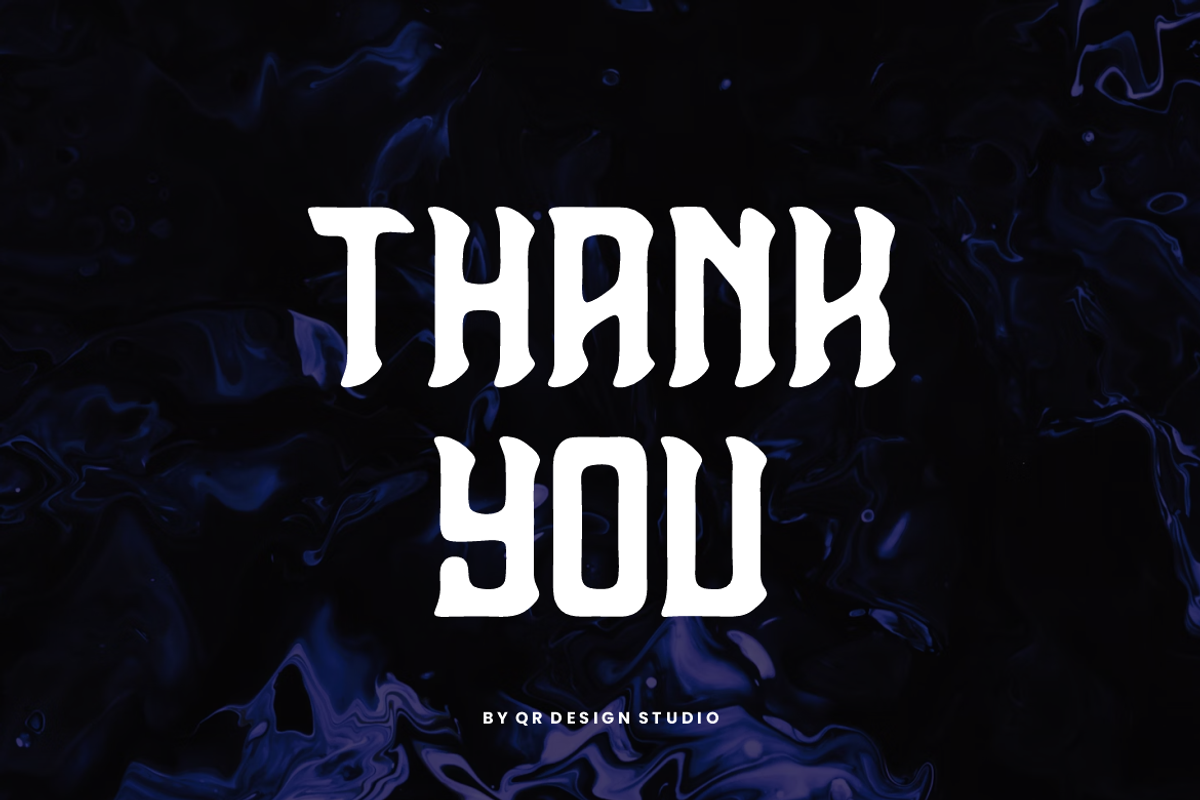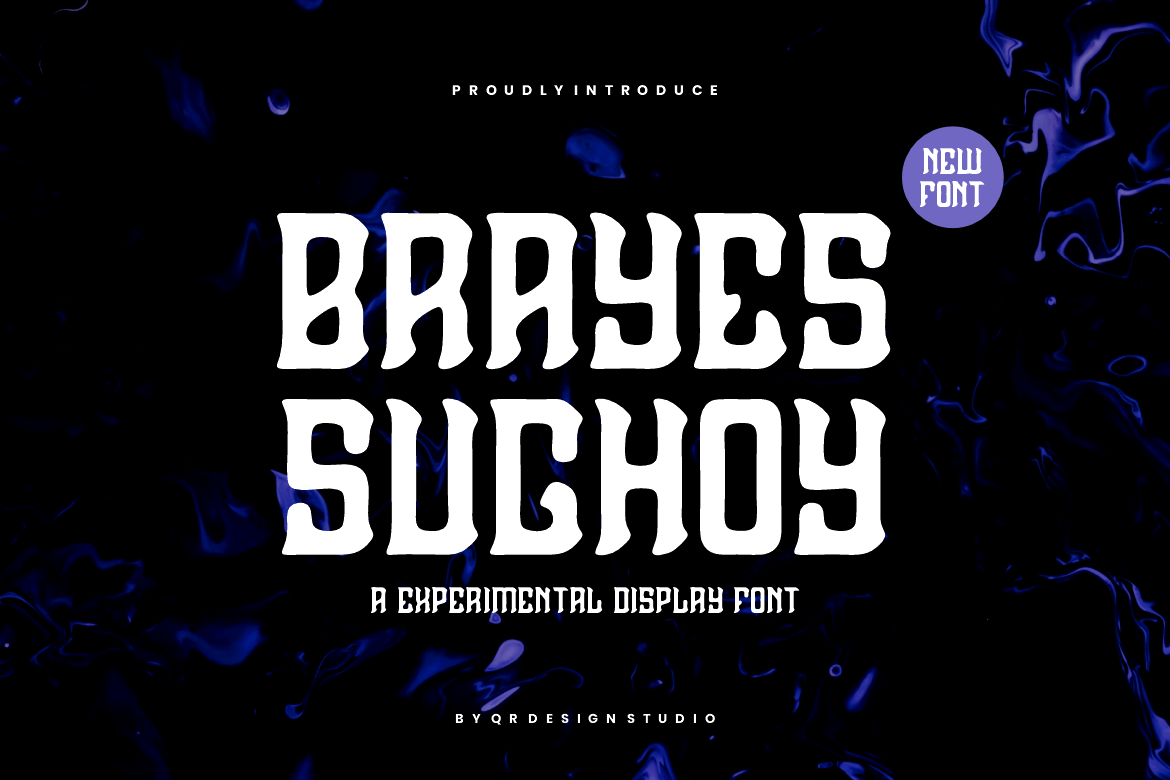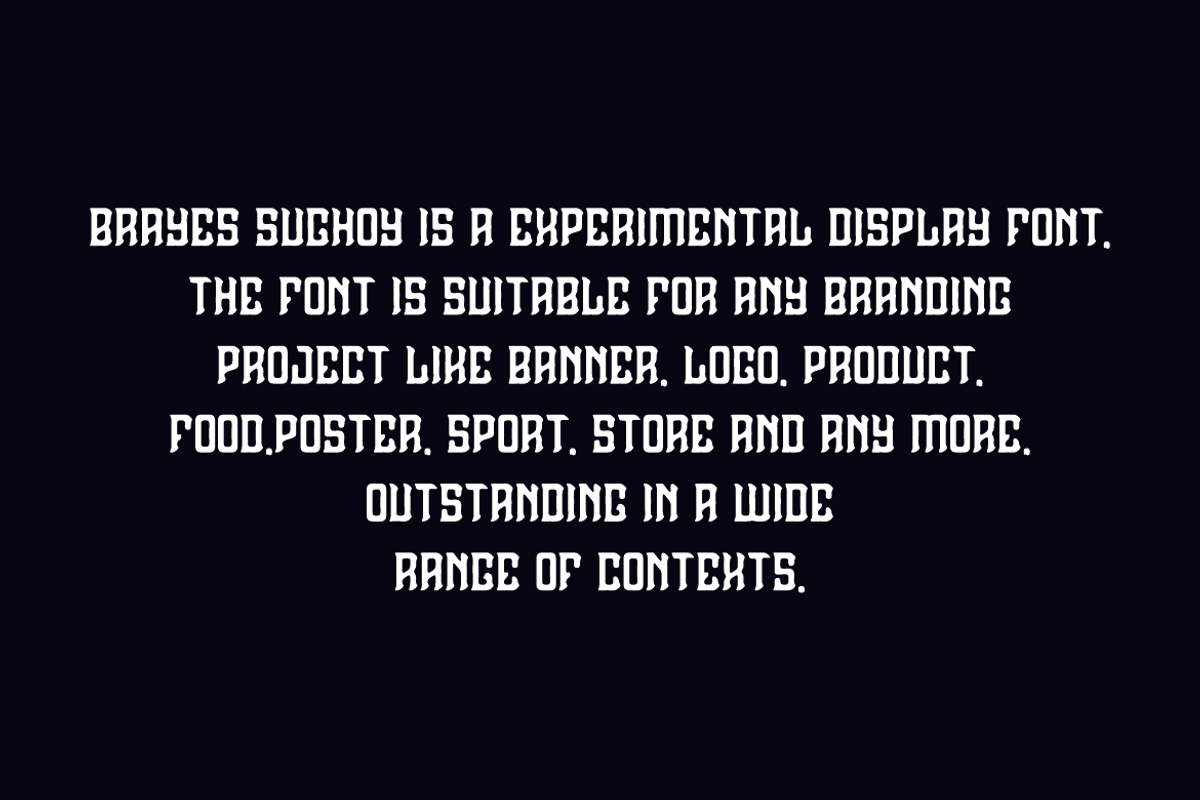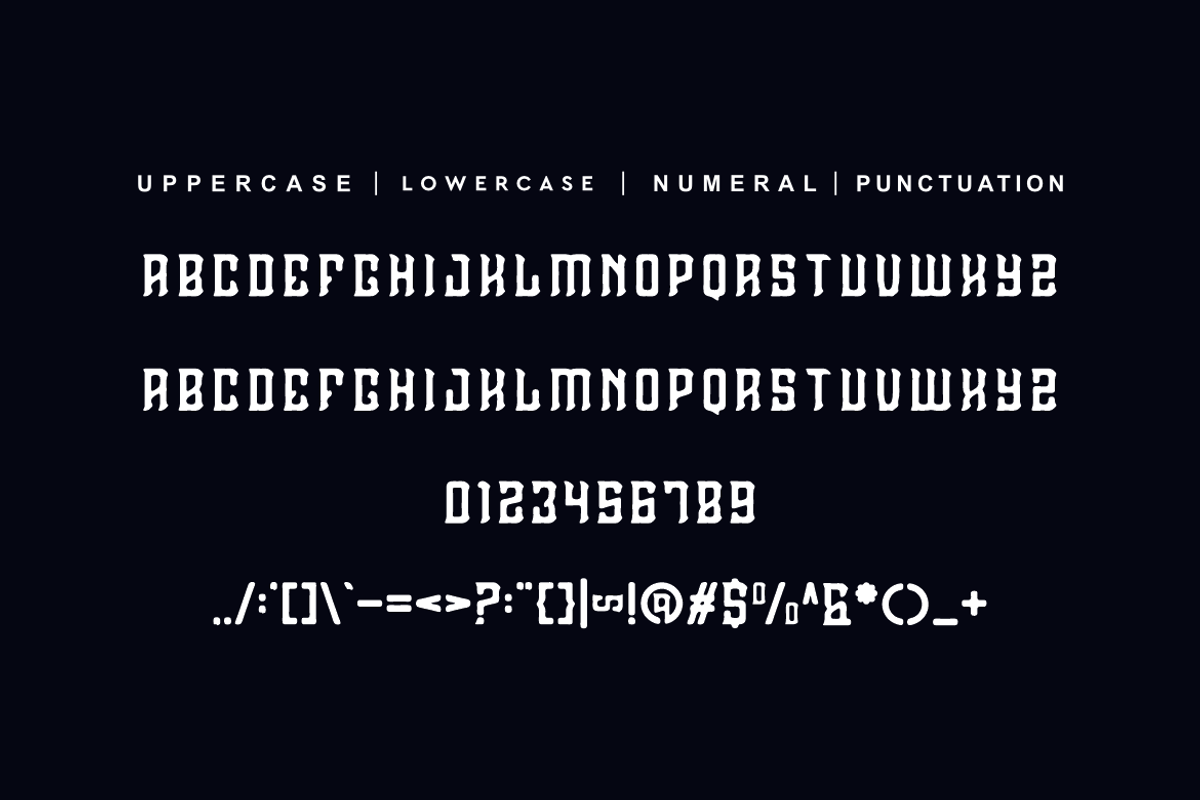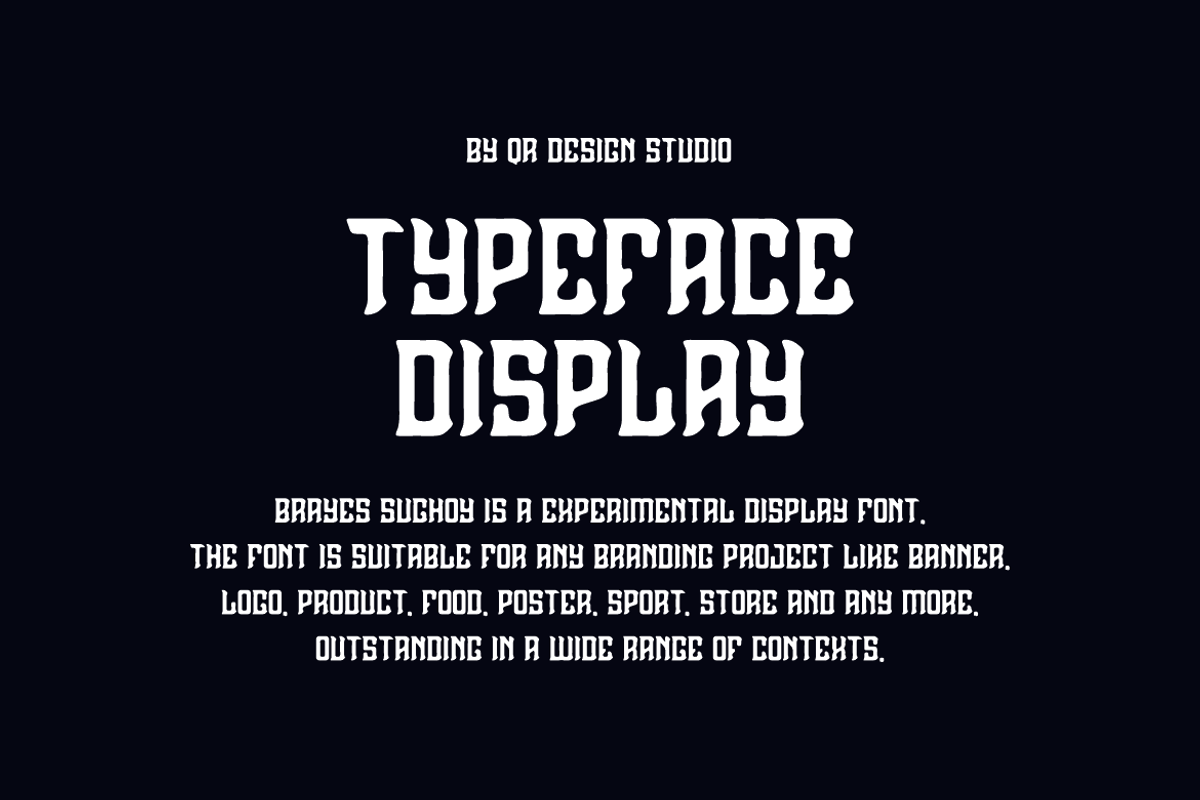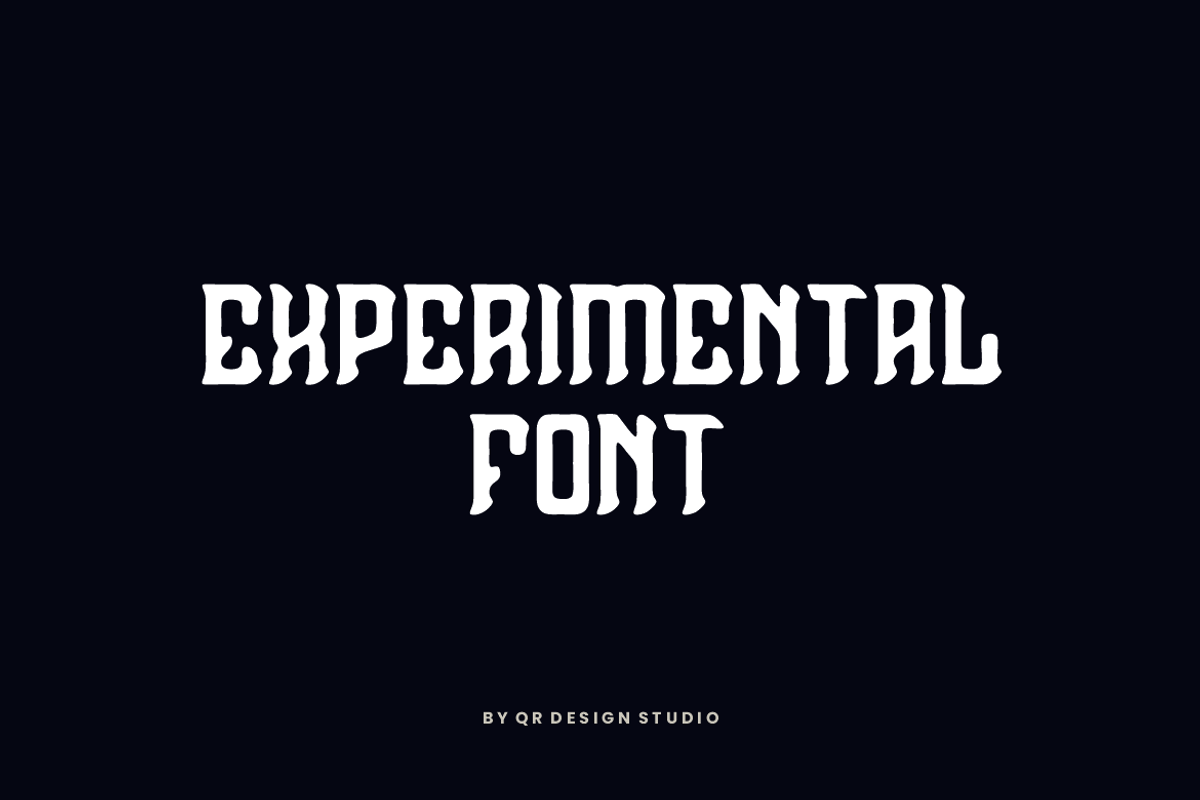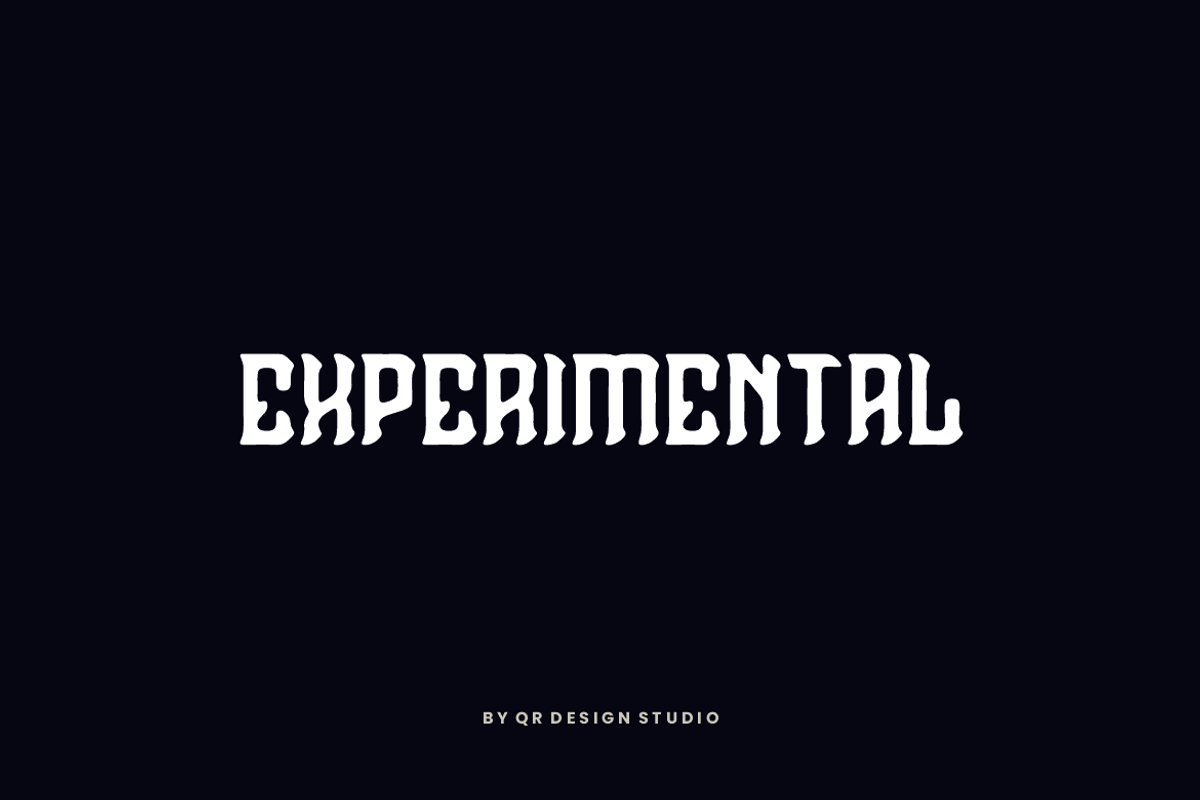
Brayes Sughoy - Experimental Font
Brayes Sughoy Font is a bold and authentic display font. The font is suitable for any branding project like poster, logo, sport, and many more. Outstanding in a wide range of contexts.